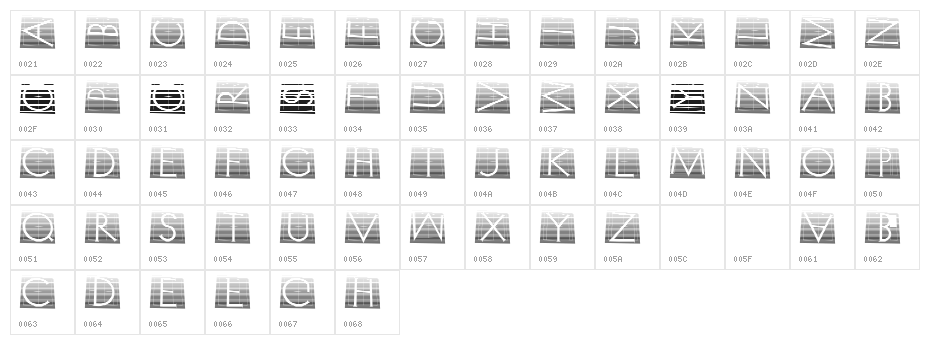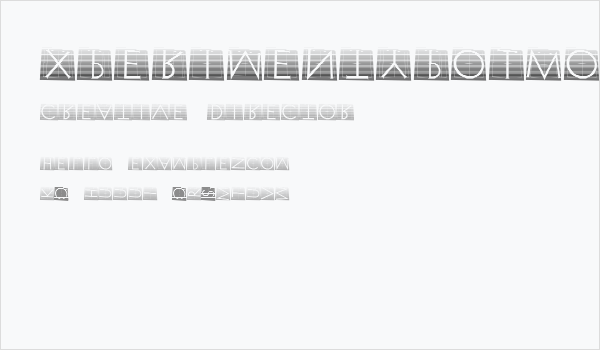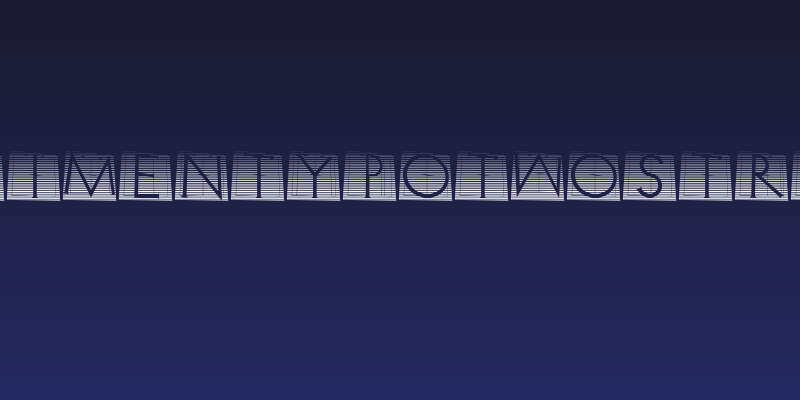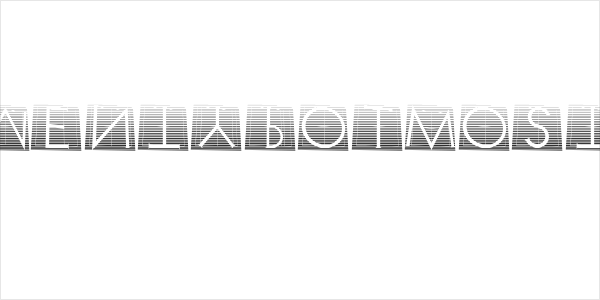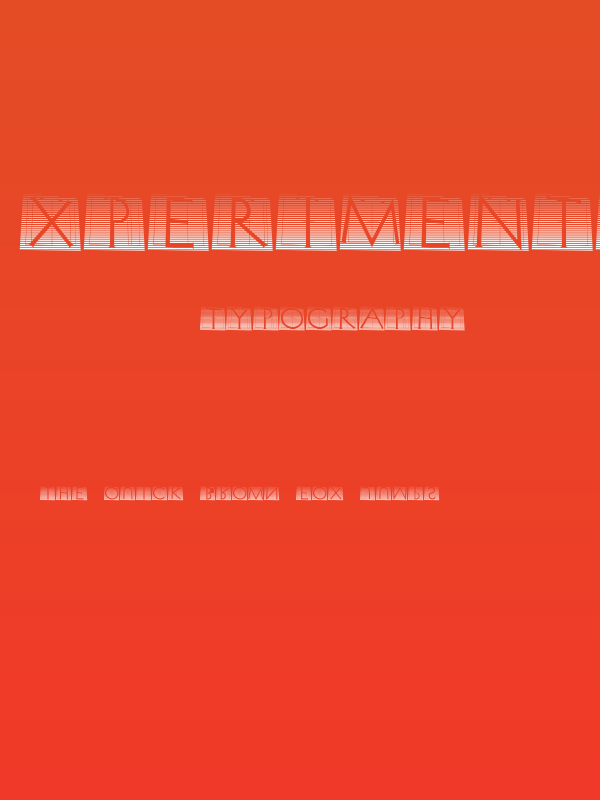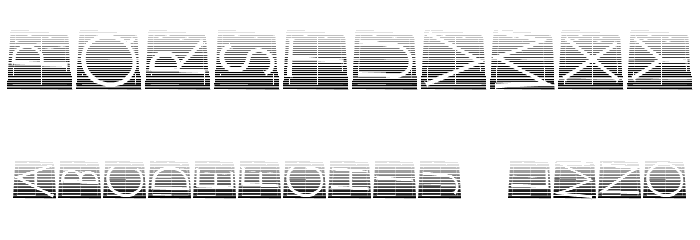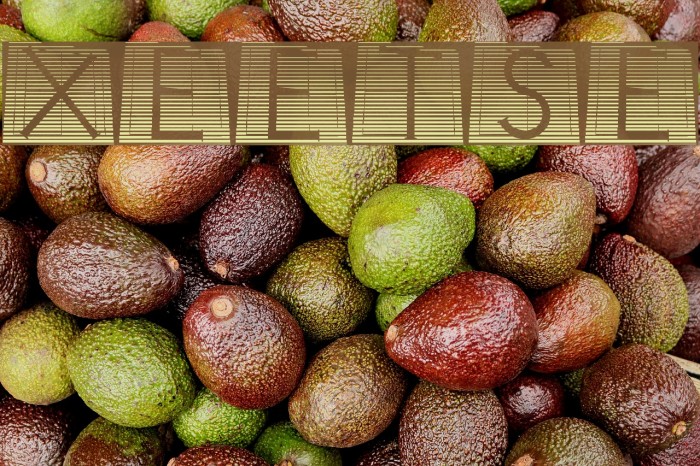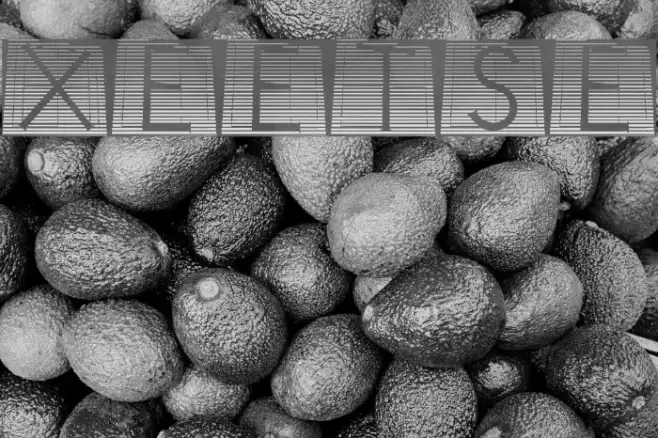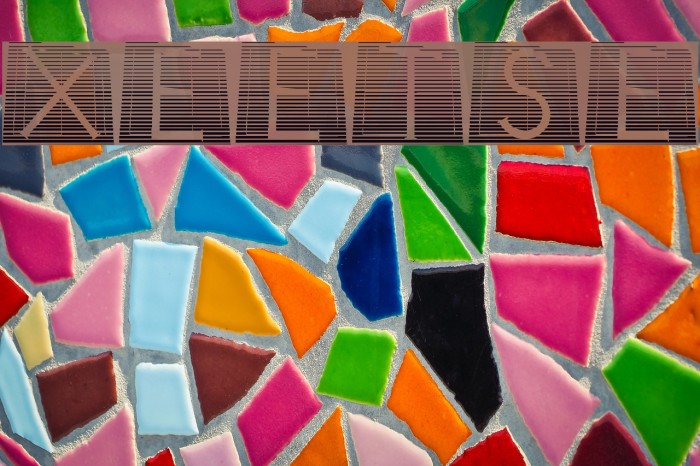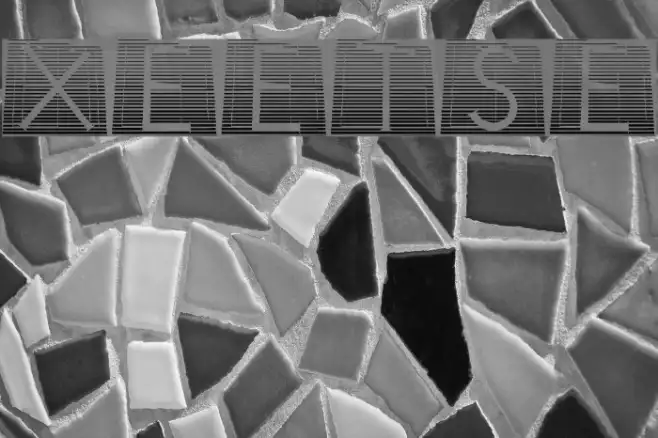
XperimentypoTwoStripes Font
XperimentypoTwoStripes Description
This font features a unique design with each character composed of horizontal stripes, creating a visually striking and modern appearance. The letters are bold and geometric, with a consistent pattern of lines that give a sense of depth and texture. The uppercase and lowercase letters maintain a uniform style, while the numerals and special characters are crafted with the same striped effect, ensuring cohesion across all elements. This design is particularly eye-catching and would stand out in any creative project.
| Proposed Projects | Ideal for branding, posters, album covers, and any project requiring a bold, modern aesthetic. |